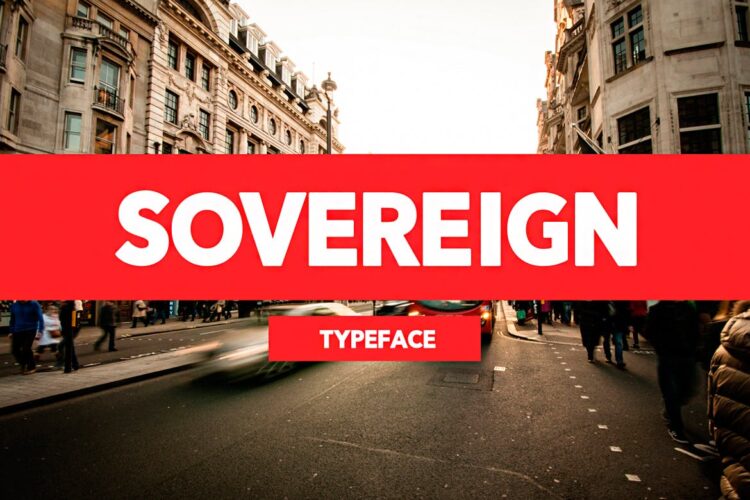
Best Font For Banner . It’s got a classic vibe that brings a. Bebas neue has a tall, condensed structure that works great for loud, bold messaging in posters and banners. Every font is free to download! Volkhov this serif typeface follows a more modern, sleek look, making it perfect for banner designs and adverts. 695 free banner fonts · 1001 fonts You know it, you’ve seen it, and it just works. ✓ click to find the best 473 free fonts in the banner style. It’s like the little black dress of fonts.
✓ click to find the best 473 free fonts in the banner style. 695 free banner fonts · 1001 fonts Every font is free to download! It’s got a classic vibe that brings a. Bebas neue has a tall, condensed structure that works great for loud, bold messaging in posters and banners. It’s like the little black dress of fonts. You know it, you’ve seen it, and it just works. Volkhov this serif typeface follows a more modern, sleek look, making it perfect for banner designs and adverts.
Best Font For Banner You know it, you’ve seen it, and it just works. 695 free banner fonts · 1001 fonts You know it, you’ve seen it, and it just works. Volkhov this serif typeface follows a more modern, sleek look, making it perfect for banner designs and adverts. It’s like the little black dress of fonts. ✓ click to find the best 473 free fonts in the banner style. Every font is free to download! Bebas neue has a tall, condensed structure that works great for loud, bold messaging in posters and banners. It’s got a classic vibe that brings a.
35+ Best Fonts for Signs, Banners & Billboards 2024 Theme Junkie Best Font For Banner Bebas neue has a tall, condensed structure that works great for loud, bold messaging in posters and banners. You know it, you’ve seen it, and it just works. It’s like the little black dress of fonts. Volkhov this serif typeface follows a more modern, sleek look, making it perfect for banner designs and adverts. Every font is free to download!. Best Font For Banner.
15+ Best Fonts for Banners in 2021 Free and Premium Best Font For Banner ✓ click to find the best 473 free fonts in the banner style. Every font is free to download! Volkhov this serif typeface follows a more modern, sleek look, making it perfect for banner designs and adverts. It’s got a classic vibe that brings a. 695 free banner fonts · 1001 fonts Bebas neue has a tall, condensed structure that. Best Font For Banner.
35+ Best Fonts for Signs, Banners & Billboards 2024 Theme Junkie Best Font For Banner You know it, you’ve seen it, and it just works. Bebas neue has a tall, condensed structure that works great for loud, bold messaging in posters and banners. Volkhov this serif typeface follows a more modern, sleek look, making it perfect for banner designs and adverts. Every font is free to download! It’s like the little black dress of fonts.. Best Font For Banner.
15+ Best Fonts for Banners in 2021 Free and Premium Best Font For Banner ✓ click to find the best 473 free fonts in the banner style. 695 free banner fonts · 1001 fonts You know it, you’ve seen it, and it just works. Bebas neue has a tall, condensed structure that works great for loud, bold messaging in posters and banners. Every font is free to download! It’s like the little black dress. Best Font For Banner.
Favorite Free Banner Fonts Best Font For Banner ✓ click to find the best 473 free fonts in the banner style. Bebas neue has a tall, condensed structure that works great for loud, bold messaging in posters and banners. You know it, you’ve seen it, and it just works. It’s got a classic vibe that brings a. It’s like the little black dress of fonts. 695 free banner. Best Font For Banner.
Cool Fonts For Banners 35 Best Fonts To Make Attractive Banners Best Font For Banner Volkhov this serif typeface follows a more modern, sleek look, making it perfect for banner designs and adverts. You know it, you’ve seen it, and it just works. It’s like the little black dress of fonts. It’s got a classic vibe that brings a. Every font is free to download! Bebas neue has a tall, condensed structure that works great. Best Font For Banner.
15+ Best Fonts for Banners in 2021 Free and Premium Best Font For Banner You know it, you’ve seen it, and it just works. It’s like the little black dress of fonts. ✓ click to find the best 473 free fonts in the banner style. Volkhov this serif typeface follows a more modern, sleek look, making it perfect for banner designs and adverts. Bebas neue has a tall, condensed structure that works great for. Best Font For Banner.
15+ Best Fonts for Banners in 2021 Free and Premium Best Font For Banner Every font is free to download! Bebas neue has a tall, condensed structure that works great for loud, bold messaging in posters and banners. 695 free banner fonts · 1001 fonts It’s like the little black dress of fonts. ✓ click to find the best 473 free fonts in the banner style. You know it, you’ve seen it, and it. Best Font For Banner.
35+ Best Fonts for Signs, Banners & Billboards 2024 Theme Junkie Best Font For Banner Volkhov this serif typeface follows a more modern, sleek look, making it perfect for banner designs and adverts. Bebas neue has a tall, condensed structure that works great for loud, bold messaging in posters and banners. 695 free banner fonts · 1001 fonts It’s like the little black dress of fonts. It’s got a classic vibe that brings a. Every. Best Font For Banner.